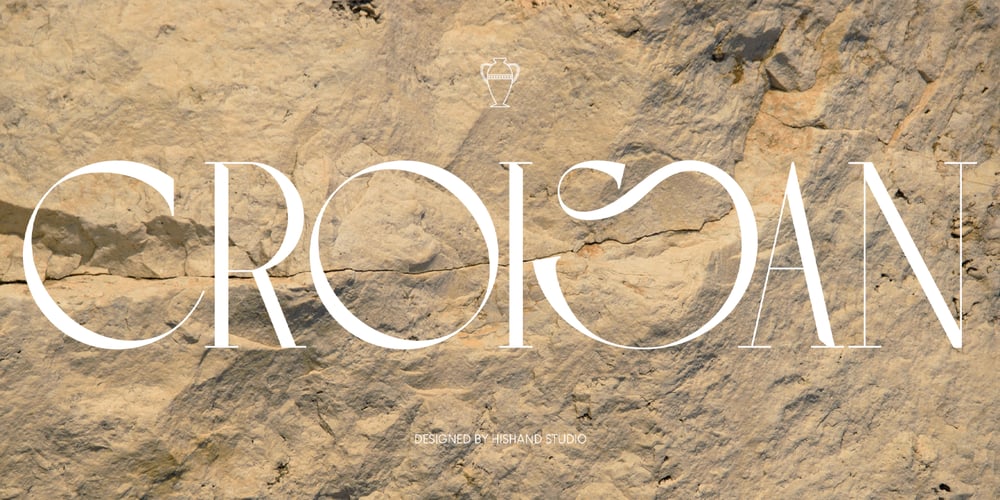
Croisan Font Family was designed by Putu Dody Permana and published by Hishand Studio. Croisan contains 3 styles and family package options. The Croisan serif font stands out for its delicate and slender lettering, making it an ideal choice for conveying a sense of subtle luxury and elegant. Perfect logo, branding, invitations, stationery, wedding designs, social media posts, and much more. Complete with ligatures alternates regular hollow icon kerning multilingual support